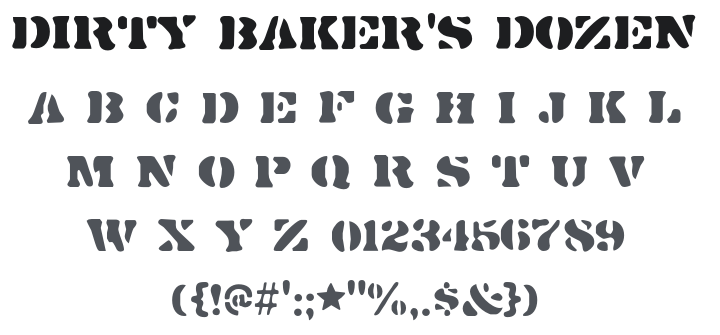
Dirty Baker's Dozen Font
About Dirty Baker's Dozen
Dirty Baker’s Dozen brings raw attitude in three styles... Clean, Scorch, and Spraypaint... ranging from lightly worn to full-throttle destruction. Each version carries rough, authentic texture that turns plain text into something gritty and alive. Smart ligatures keep repetition at bay, while multilingual support ensures its impact travels worldwide. Whether you’re designing for music, streetwear, film, or protest art, Dirty Baker’s Dozen delivers industrial edge and urban energy in equal measure…perfect for when your typography needs to look lived-in, not designed.